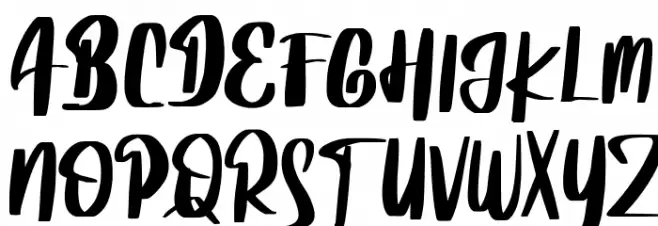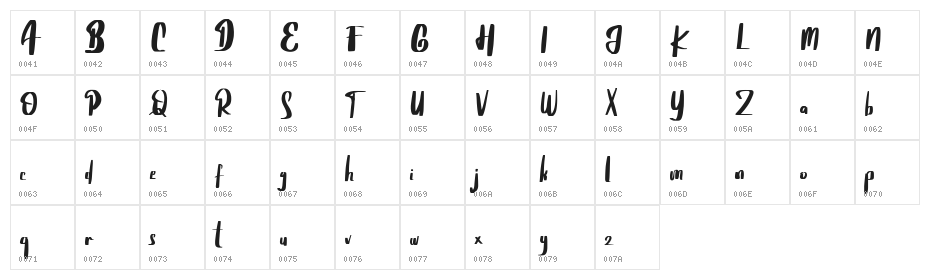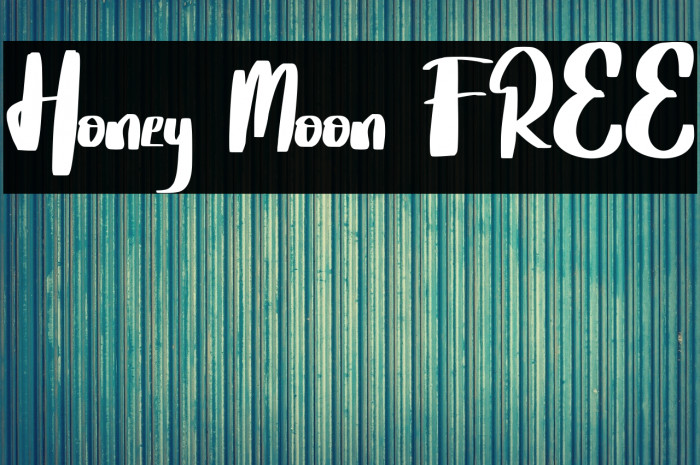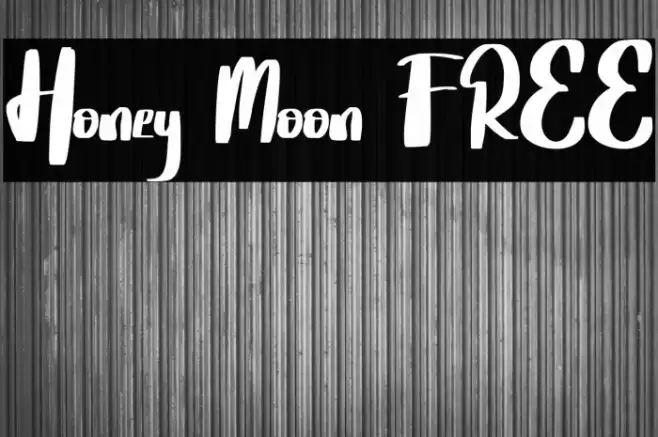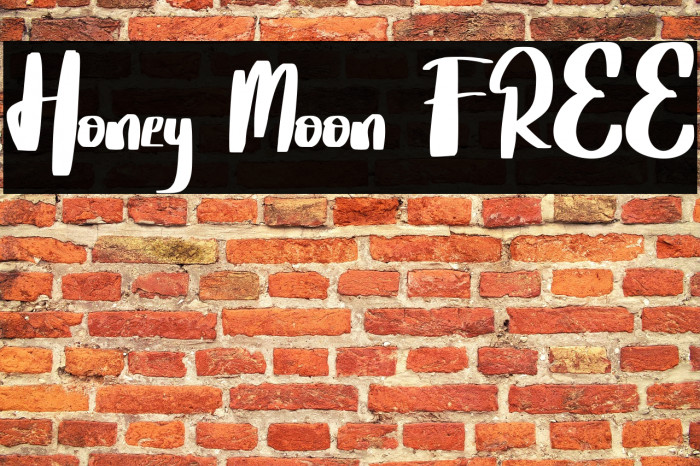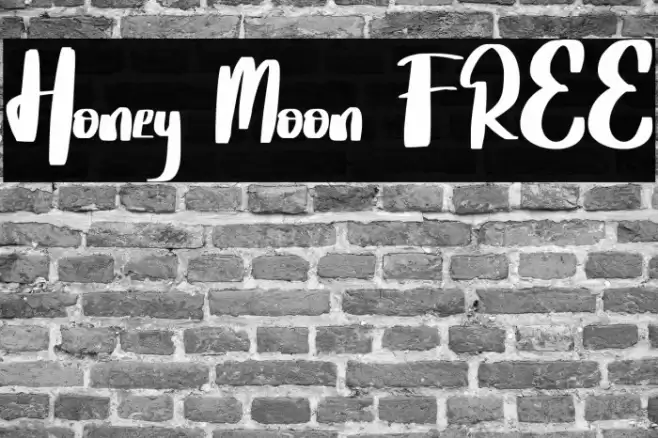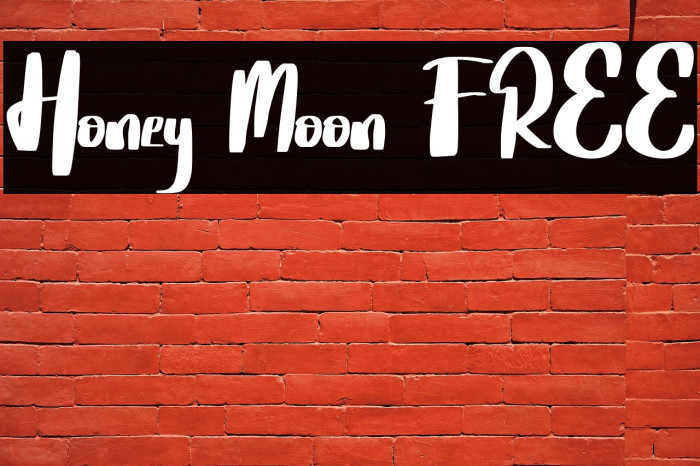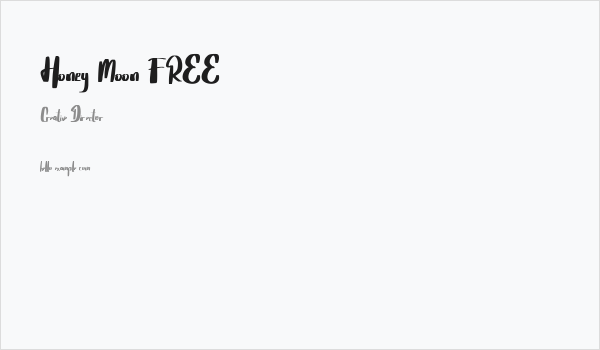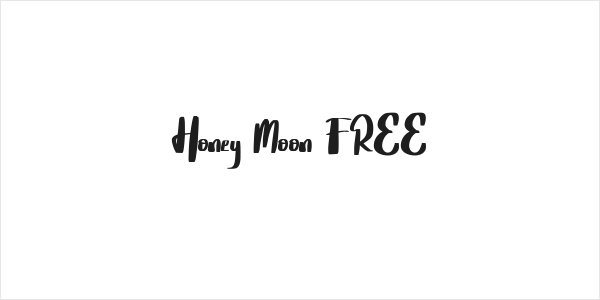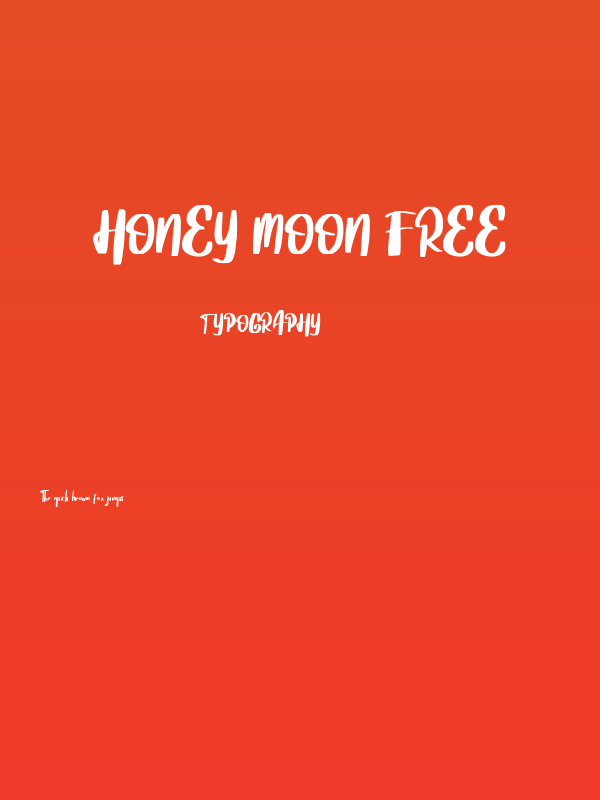
Honey Moon FREE Font
Honey Moon FREE Description
This font exudes a playful and dynamic energy with its bold, sweeping strokes and slightly irregular character shapes. The uppercase letters are particularly striking, featuring a blend of thick and thin lines that create a sense of movement and flair. The lowercase letters maintain this lively style, with elongated ascenders and descenders that add to the font's whimsical nature. The overall design is reminiscent of hand-painted signage, making it ideal for projects that require a touch of personality and creativity. The font's unique style is further enhanced by its moderate contrast in stroke thickness, which adds depth and visual interest.